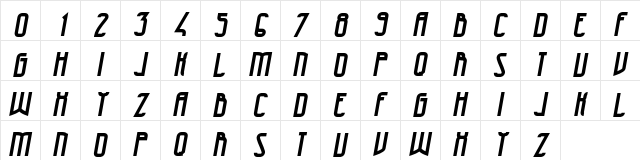
47 Bold Italic Free Font
47 Bold Italic
Foundry: Moinzek
Designer: Hendrick Rolandez
Design Context for 47
47 is a composed and adaptable typeface that performs quietly and consistently across a wide range of design contexts. The slanted form adds forward momentum and visual energy. Its bold stroke weight gives it real presence on the page.
Pro Tip: Use 47 for emphasis, pull quotes, and subheadings where its slanted energy can add rhythm to the layout.